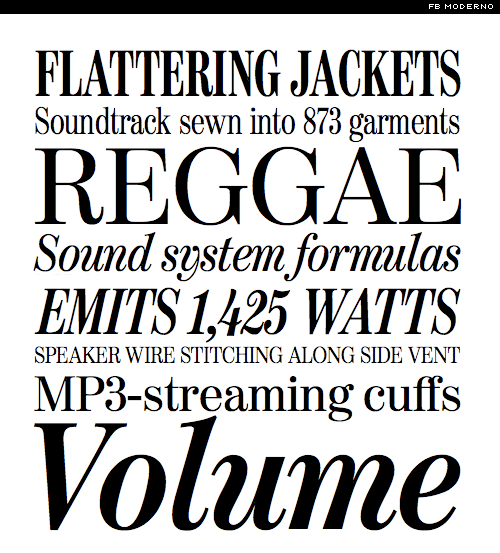
FB Moderno
Moderno Font Family
FB Moderno Font Family
In 1995, David Berlow cut FB Moderno for Esquire Gentleman and Reforma from a TrueType pole of Giza. In 1996 he cut new styles with Richard Lipton for El Norte. In 1997 Roger Black ordered new weights for Tages Anzeiger. Redesign of Baltimore Sun, with FB Ionic as text, required further growth. The whole series was then revised for Louise Vincent, Montreal Gazette, with further styles added in 2005 for La Stampa.